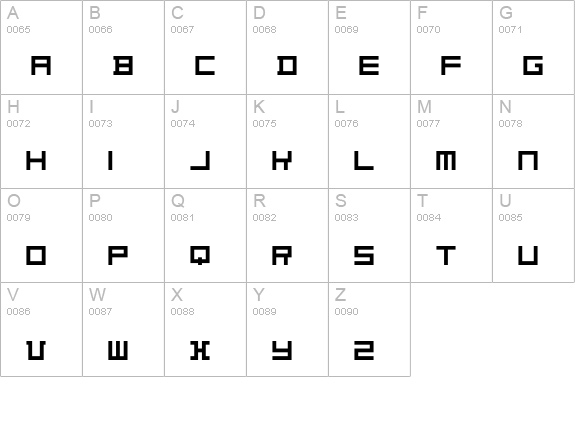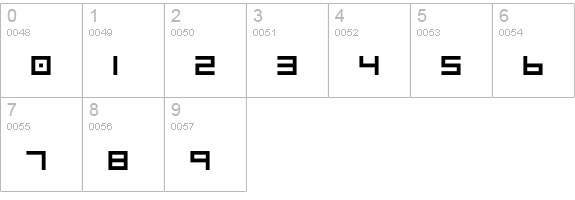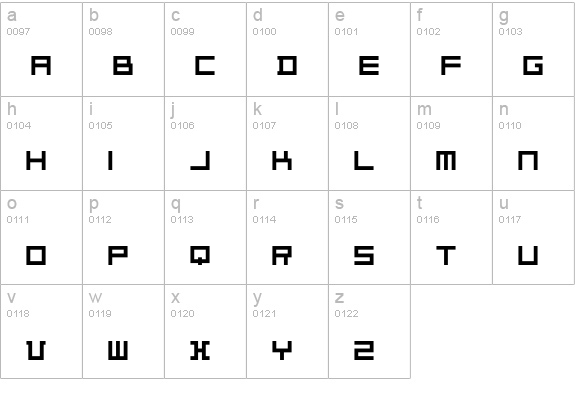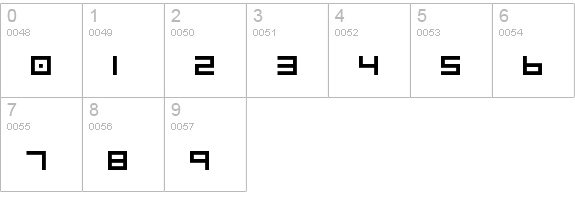
DeStijl Font Details
DeStijl font is a modern and sleek typeface that exudes sophistication and elegance. With its clean lines and minimalist design, this font is perfect for adding a touch of contemporary style to any project. The DeStijl font is versatile and can be used for a wide range of applications, from branding to editorial design. Its geometric shapes and precise letterforms give it a unique and eye-catching appeal. What's even better is that DeStijl font is available for free download at FontsMarket.com. This means you can easily access this stylish typeface and use it in your designs without any cost. Whether you're a designer looking to elevate your work or someone looking to add a modern touch to your projects, DeStijl font is the perfect choice. Download it now and start creating stunning designs with this beautiful and free font.